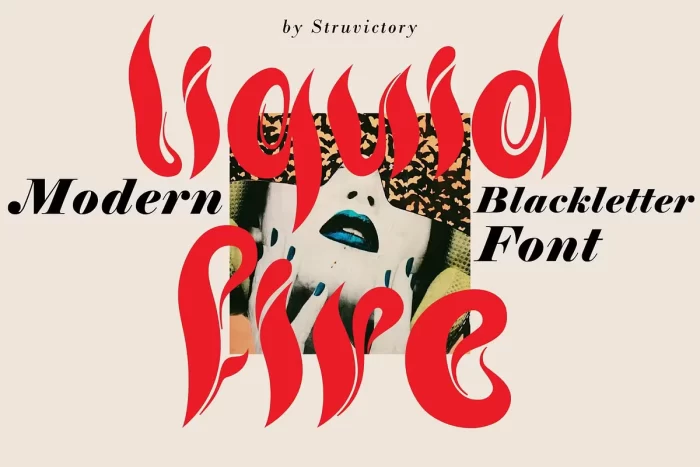
Introducing Liquid Fire, a contemporary Gothic font with fluid forms that exude mystery and sophistication. This avant-garde typeface combines intricate elegance with a modern twist, perfect for logos, branding, editorial layouts, and dark theme design.